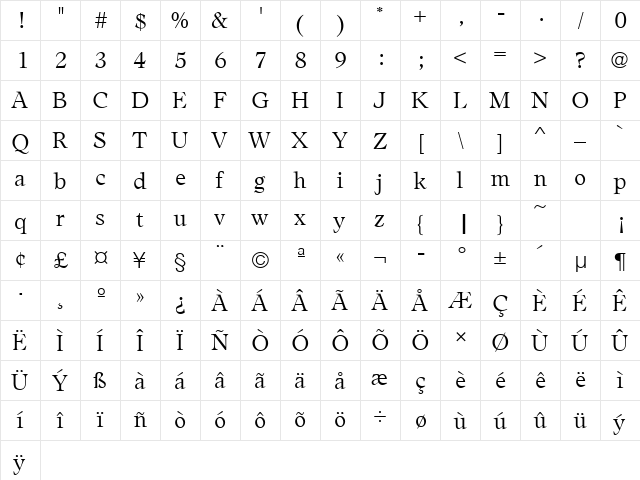
AdroitURWTLig Regular
Design Context for AdroitURWTLig Typeface
AdroitURWTLig offers clean, dependable letterforms without strong stylistic allegiance, making it a practical choice for designers who need flexibility.
Pro Tip: Use AdroitURWTLig in both headline and body roles to test its range before committing to a single application.